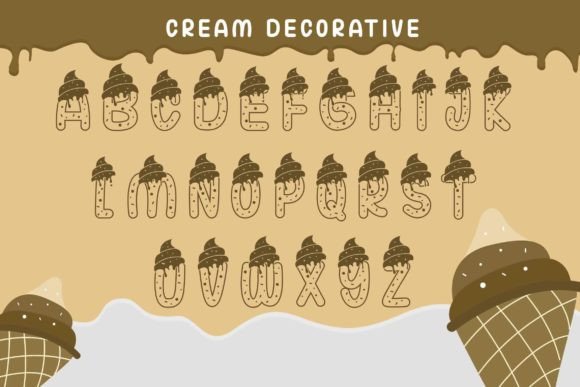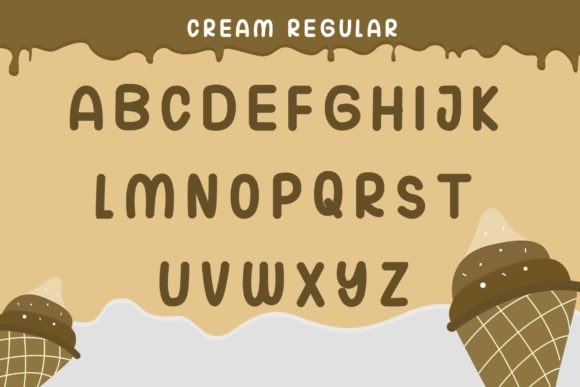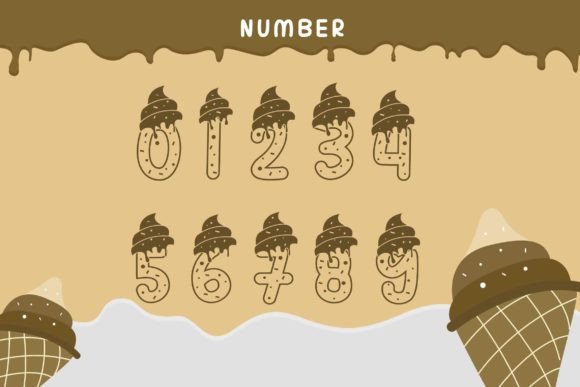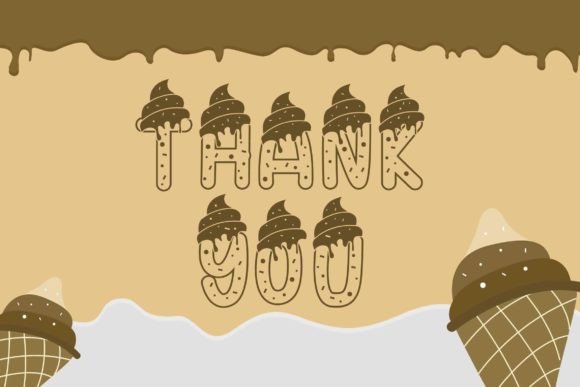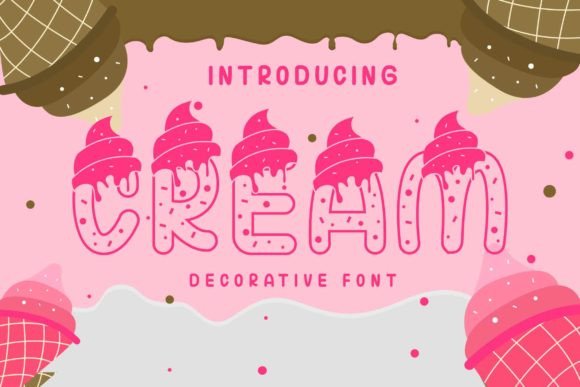
Cream Font: The Perfect Addition to Your Children’s Design Projects
Are you a designer or crafter looking for a fun and playful font to add to your children’s themed designs? Look no further than the Cream Font! This adorable decorative font is perfect for creating eye-catching and engaging designs for kids, from greeting cards to posters, happy birthdays, and more.
What is Cream Font?
Cream Font is a unique and creative typeface that is sure to bring a smile to any child’s face. Its playful and whimsical design makes it an ideal choice for designers and crafters who want to create fun and lively projects for kids. The font’s rounded edges and soft curves give it a friendly and approachable feel, making it perfect for designs that require a personal touch.
Features of Cream Font
Cream Font comes with a range of features that make it an excellent choice for designers and crafters. Some of its key features include:
- Playful Design: Cream Font has a fun and playful design that is sure to capture the attention of kids and adults alike.
- Rounded Edges: The font’s rounded edges give it a soft and friendly feel, making it perfect for designs that require a personal touch.
- Easy to Read: Despite its playful design, Cream Font is easy to read, making it perfect for use in a variety of designs, from posters to greeting cards.
- Versatile: Cream Font can be used in a range of designs, from children’s party invitations to educational materials.
Uses of Cream Font
Cream Font is a versatile typeface that can be used in a range of designs, including:
- Greeting Cards: Create fun and personalized greeting cards for kids, including happy birthdays, get well soon, and congratulations.
- Posters: Design eye-catching posters for kids’ events, including birthday parties, school plays, and sports events.
- Children’s Party Invitations: Create fun and playful invitations for kids’ parties, including birthday parties, Halloween parties, and Christmas parties.
- Educational Materials: Use Cream Font to create engaging and interactive educational materials, including worksheets, activity sheets, and educational posters.
Tips for Using Cream Font
Here are some tips for using Cream Font in your designs:
- Combine with Bright Colors: Combine Cream Font with bright and colorful colors to create adorable and friendly projects.
- Use in Combination with Other Fonts: Use Cream Font in combination with other fonts to create visually appealing and engaging designs.
- Experiment with Different Sizes: Experiment with different sizes of Cream Font to create visual interest and hierarchy in your designs.
Cream Font is a fun and cute decorative font that is perfect for children’s themed designs. Its playful and whimsical design makes it an ideal choice for designers and crafters who want to create engaging and interactive projects for kids. With its range of features, versatility, and ease of use, Cream Font is sure to become a favorite in your design arsenal.